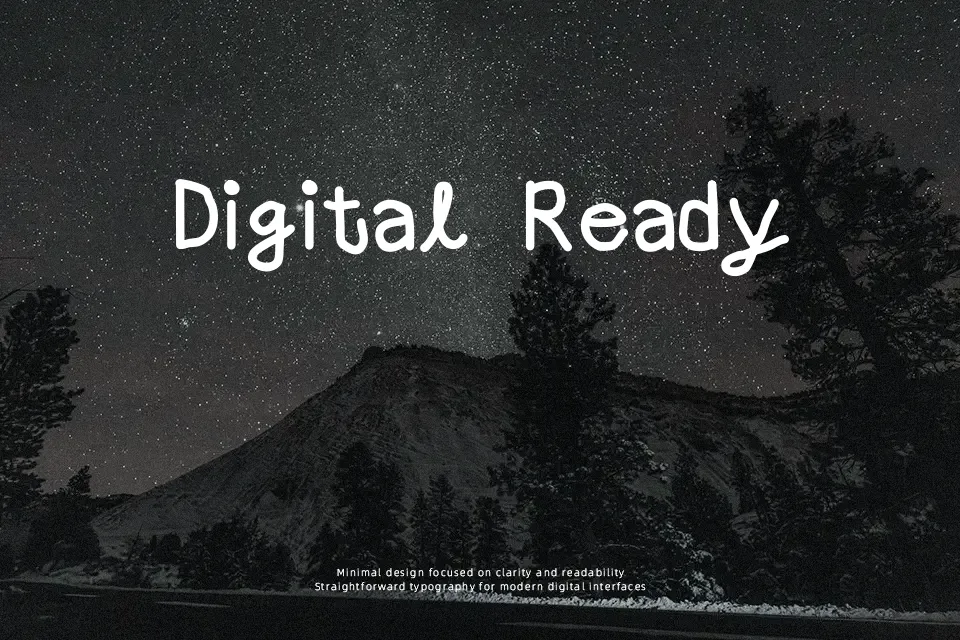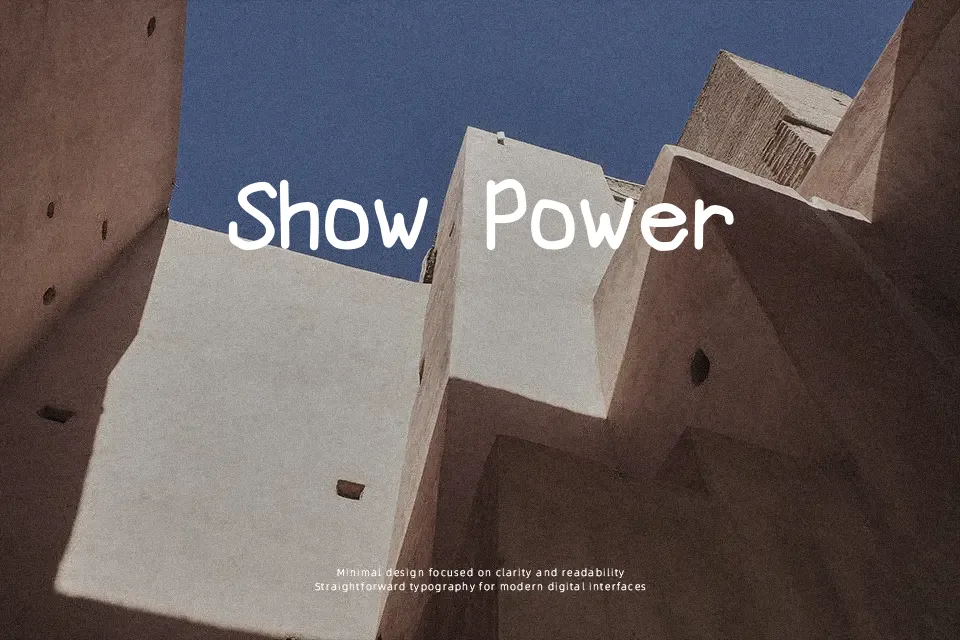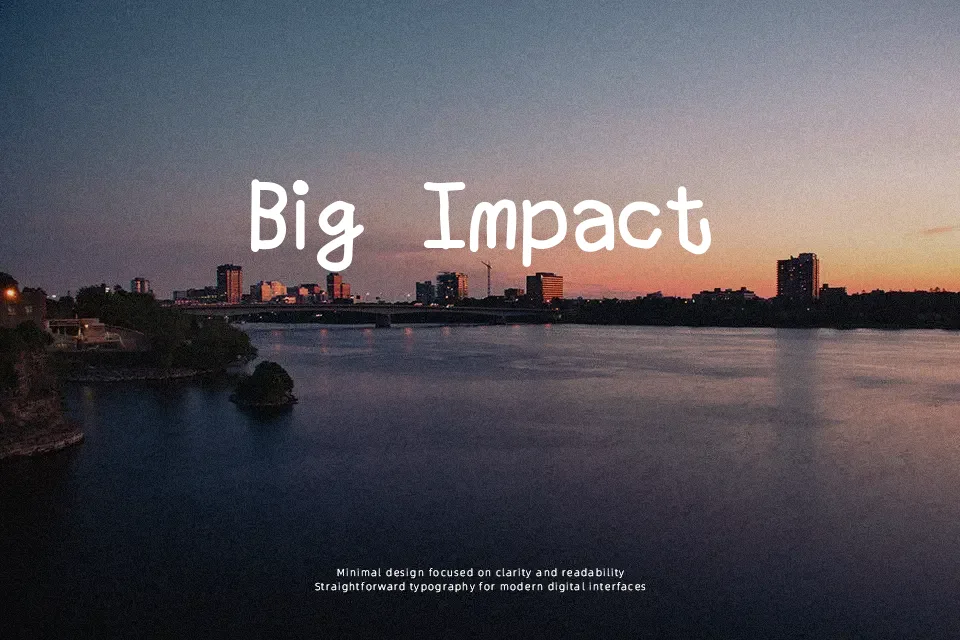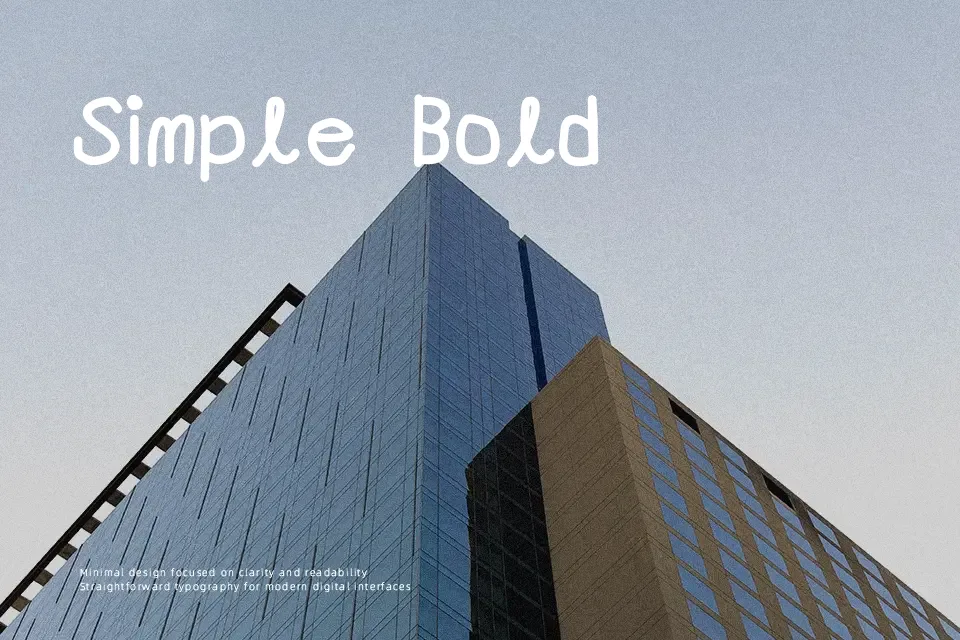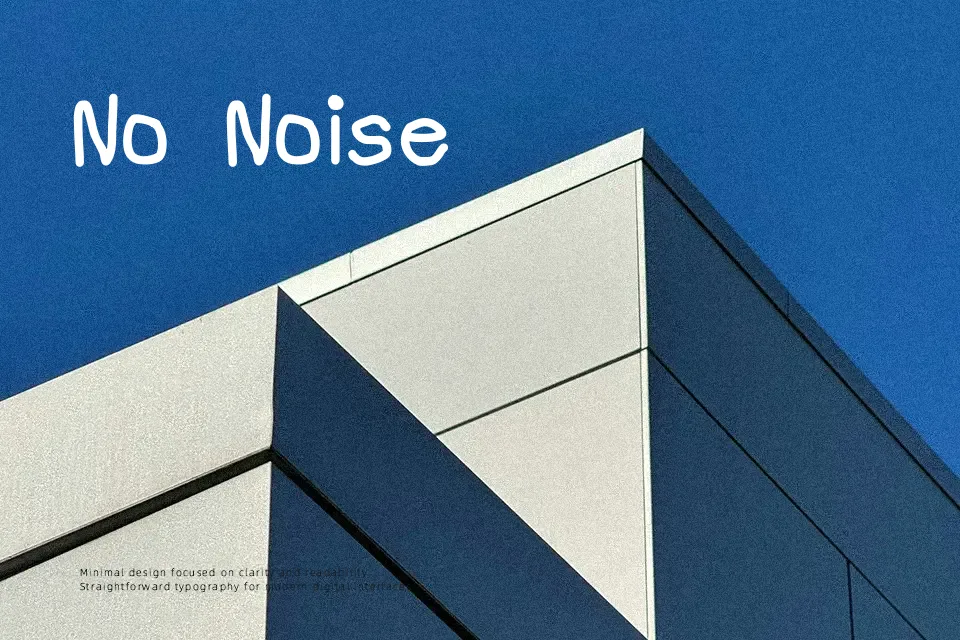
Aaron Sans Font
Designed by Aaron Patrick Ryan
Sitting comfortably in the Fancy > Comic category, Aaron Sans carries the loose, informal energy typical of hand-influenced sans-serif lettering — slightly uneven rhythm, relaxed stroke construction, and a character weight that reads well at display sizes. It suits contexts where warmth and approachability matter more than rigid typographic precision. That said, its comic-leaning personality limits how far it can stretch into polished or professional territory. At small sizes or in dense body copy, the informal stroke variation starts working against readability rather than for it. Designers who need a typeface that pulls double duty across headlines and running text will likely find Aaron Sans too narrow in range for that task.
Best For:- Children’s content headers and educational print materials
– Casual event flyers and informal poster titles
– Social media graphics with a playful tone
– Hobby blog or fan project branding
Not Ideal For:- Long-form body text or editorial layouts
– Corporate branding or professional business materials
– Small-size UI labels or interface typography
– Formal invitations or luxury packaging
Perfect for branding, headline, and kids, with a creative and comic style.